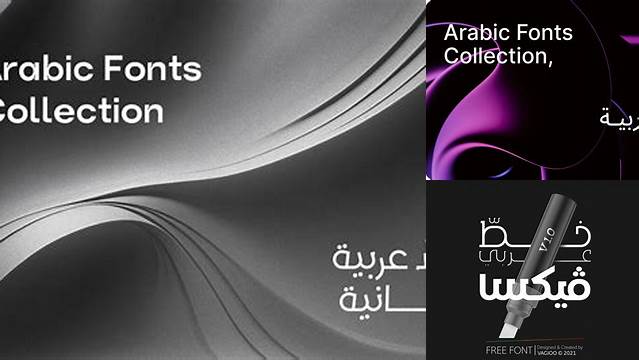
Hey guys! Finding the perfect Arabic font for your project can be a real headache, especially when you need it for commercial use. You want something that looks stunning but also doesn't land you in copyright trouble. That's why we've put together this guide to help you discover fantastic Arabic fonts free for commercial use. Whether you're designing a website, creating marketing materials, or working on a personal project, we've got you covered. This article will explore various font styles, licensing considerations, and resources for downloading these fonts, ensuring your creative endeavors are both beautiful and legally sound. So, let’s dive in and unlock the world of amazing Arabic fonts!
Exploring Different Styles of Arabic Fonts
Arabic fonts come in a wide range of styles, each with its own unique character and feel. Understanding these different styles can help you choose the arabic fonts free for commercial use that best suit your project. Here are some popular styles you'll come across:
Kufic Fonts
Kufic is one of the oldest forms of Arabic script. It’s characterized by its bold, angular shapes, making it a popular choice for logos, titles, and display text. Kufic fonts often have a historical or traditional feel, perfect for projects that need a touch of authenticity. When selecting Kufic fonts for commercial use, make sure they are clear and legible, especially in digital formats. Look for variations that have been modernized for contemporary designs while retaining the classic Kufic aesthetic.
Naskh Fonts
Naskh is a more rounded and flowing script than Kufic, making it easier to read in longer texts. It's commonly used in books, newspapers, and other printed materials. Naskh fonts free for commercial use are ideal for body text in websites or documents where readability is a priority. The smooth curves and balanced proportions of Naskh make it a versatile choice for a wide range of applications.
Thuluth Fonts
Thuluth is a decorative script known for its elegant curves and complex compositions. It’s often used in calligraphy and ornamental designs, adding a touch of sophistication and artistry to any project. While Thuluth might not be suitable for body text, Thuluth fonts for commercial use can be incredibly effective in logos, posters, and other visual elements where you want to make a statement.
RuqĘżah Fonts
Ruqʿah is a handwriting style that’s quick and easy to write, making it a popular choice for everyday use. Ruqʿah fonts often have a casual and informal feel, perfect for projects that need a personal touch. Finding Ruqʿah fonts free for commercial use can add a unique and friendly vibe to your designs, especially in social media graphics or informal communications.
Diwani Fonts
Diwani is a calligraphic style characterized by its curved lines and ornate decorations. It’s often used in official documents and ceremonial occasions, conveying a sense of prestige and formality. Diwani fonts for commercial use can be a great way to add a touch of elegance to your designs, especially in invitations, certificates, or branding materials.
Top Websites to Download Free Arabic Fonts
Finding reliable sources for arabic fonts free for commercial use is essential to avoid copyright issues and ensure high-quality typography. Here are some top websites where you can download free Arabic fonts:
Google Fonts is a fantastic resource for free, open-source fonts. They offer a variety of Arabic fonts that are easy to use and compatible with web and print projects. All fonts on Google Fonts are free for commercial use, making it a reliable choice for designers. You can easily embed them on your website or download them for use in design software.
Font Squirrel is another excellent website for finding free fonts with commercial licenses. They carefully curate their collection to ensure that all fonts are high-quality and legally safe to use. You can find a selection of Arabic fonts on Font Squirrel, with clear licensing information provided for each font.
Dafont
Dafont is a popular font archive with a vast collection of fonts, including many Arabic fonts. While not all fonts on Dafont are free for commercial use, many designers offer their fonts for free with a commercial license. Always check the licensing information before downloading a font from Dafont to ensure it meets your needs.
ArabicFonts.net
As the name suggests, ArabicFonts.net specializes in Arabic fonts. They offer a variety of fonts, including both free and commercial options. Be sure to review the licensing details for each font to confirm its usage terms.
Finding and using arabic fonts free for commercial use doesn't have to be a daunting task. By understanding font licensing, exploring different font styles, and utilizing the resources we've shared, you can confidently enhance your design projects with beautiful Arabic typography. Remember to always double-check the licensing terms and ensure that your font choices align with your brand and project goals. Happy designing, and may your creative endeavors be both visually stunning and legally sound!